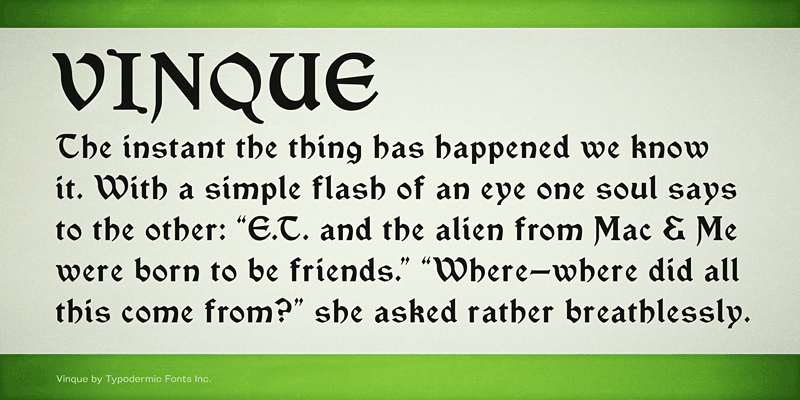
Vinque is an Arts & Crafts sort of deal. This new version of Vinque has improved vertical metrics for better cross-browser web performance and more math symbols. This font includes a license that allows free commercial use: sometimes referred to as a desktop license. This allows you to install the font on a computer and use it to create posters, web graphics, game graphics, t-shirts, videos, signs, logos and more. Read the license agreement for details. If you'd like to embed this font in an app, ebook, on the web or anything that's not covered by the desktop license agreement, visit the link below. You'll find distributors who offer different types of licenses or you can contact me for help. http://typodermicfonts.com/vinque/ |